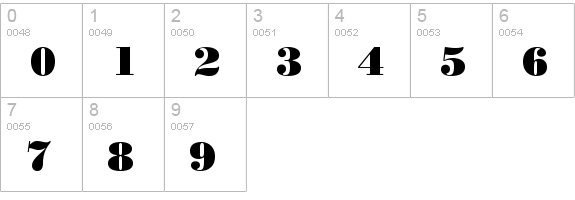
Bodoni Poster Font Details
Bodoni Poster font is a timeless classic that exudes elegance and sophistication. With its graceful curves and sharp serifs, this typeface is perfect for making a bold statement in any design project. Whether you're creating a poster, invitation, or logo, Bodoni Poster will add a touch of sophistication and refinement. What sets Bodoni Poster apart is its striking contrast between thick and thin strokes, giving it a sense of dynamism and energy. The font's clean lines and precise geometry make it a versatile choice for both traditional and modern designs. And the best part? Bodoni Poster is available for free download at FontsMarket.com. Now you can access this stunning font without breaking the bank. Don't miss out on the opportunity to elevate your designs with Bodoni Poster's timeless beauty and elegance. Download it today and let your creativity soar!